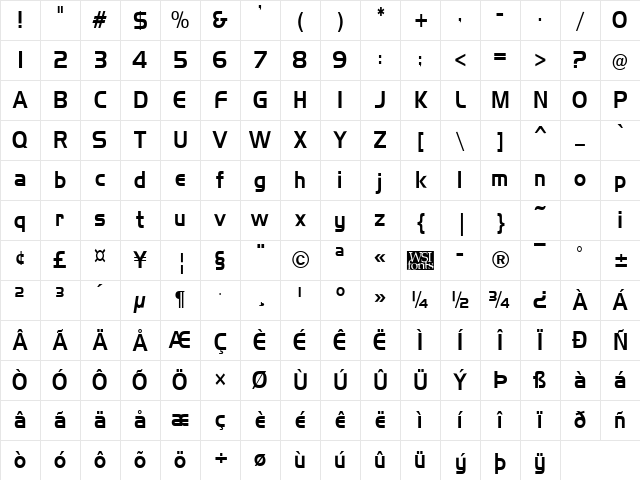
Slickerer Regular Free Font
Slickerer Regular
Slickerer Family
Design Context for Slickerer
Slickerer is a composed and adaptable typeface that performs quietly and consistently across a wide range of design contexts.